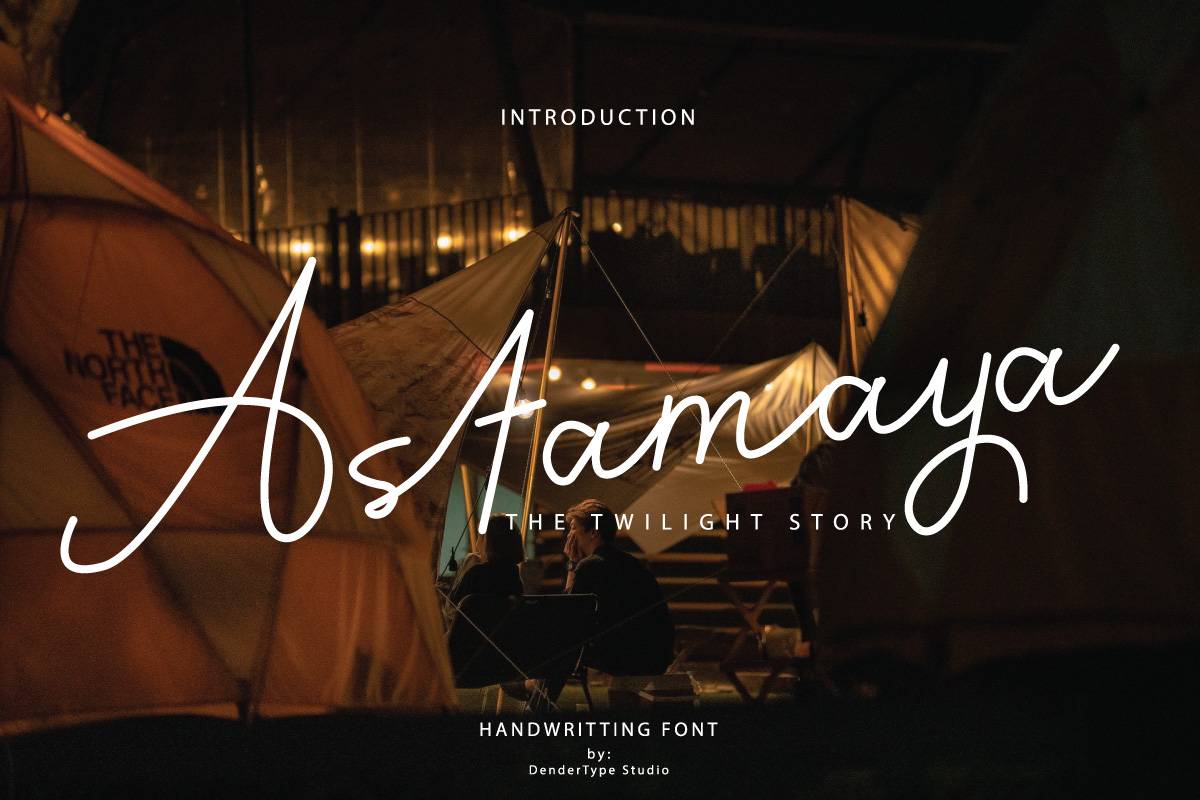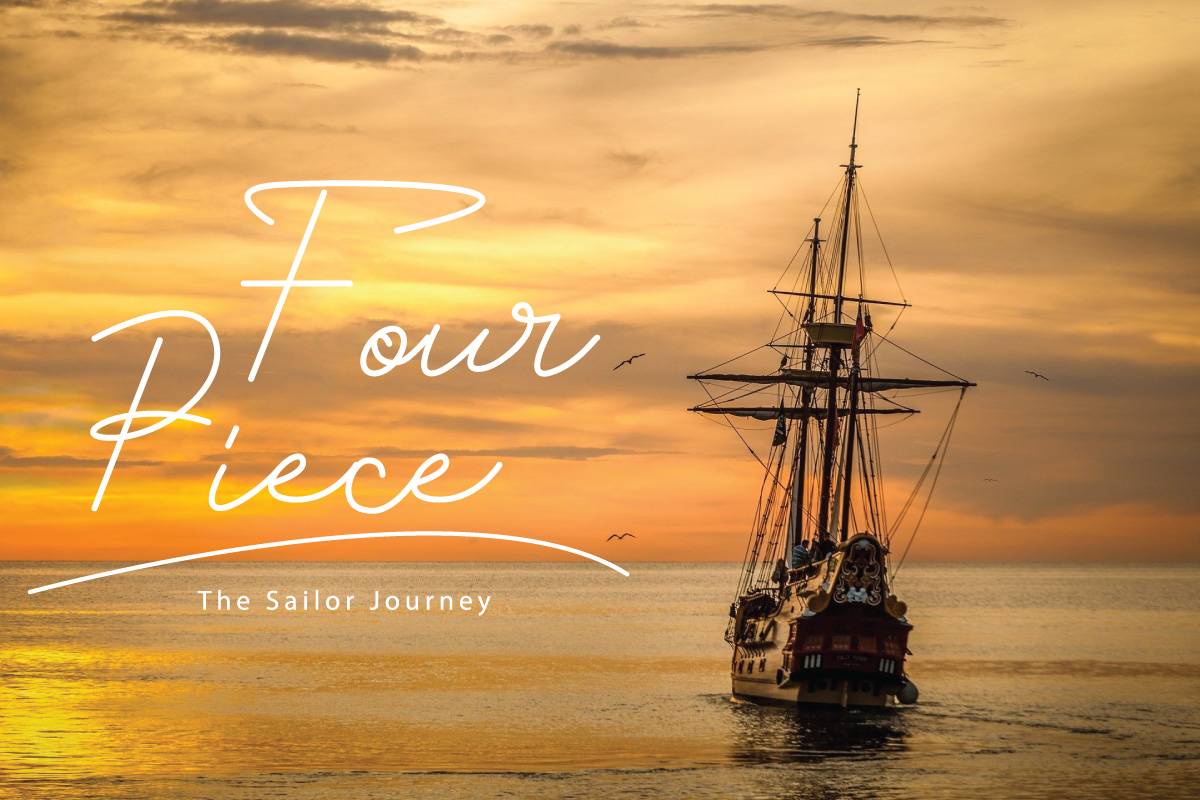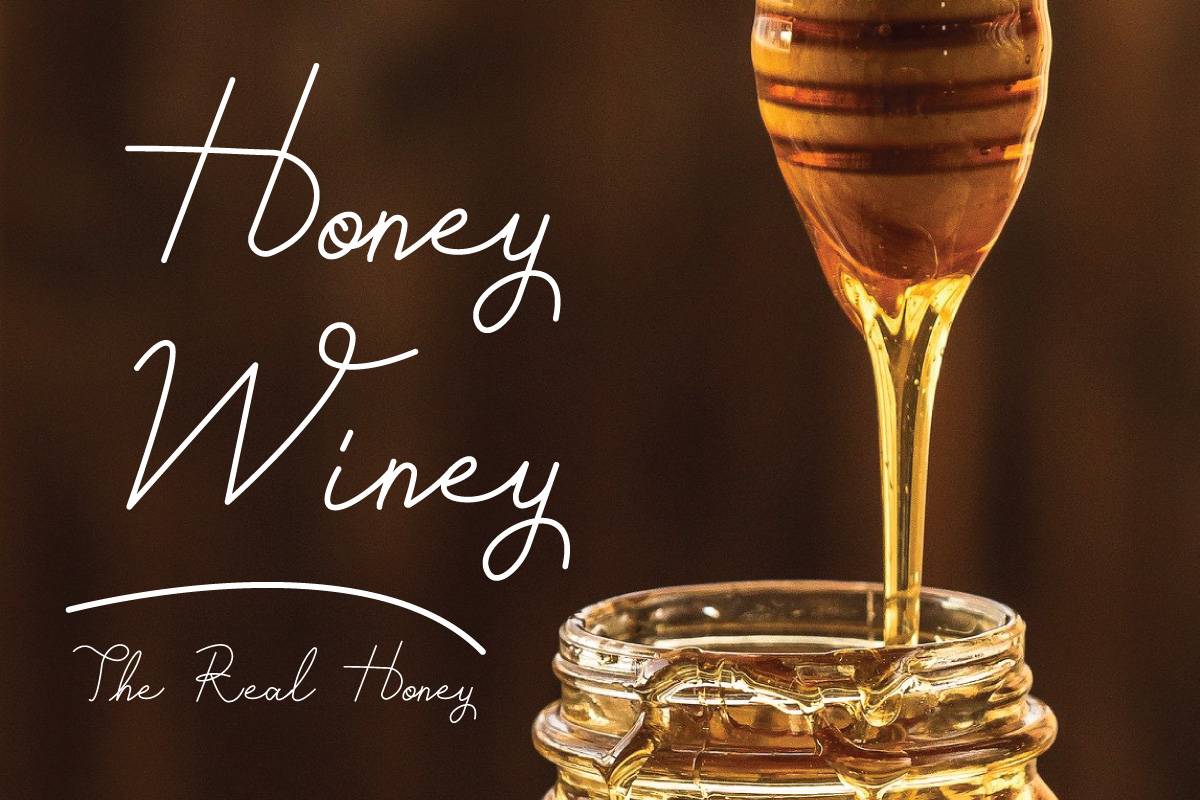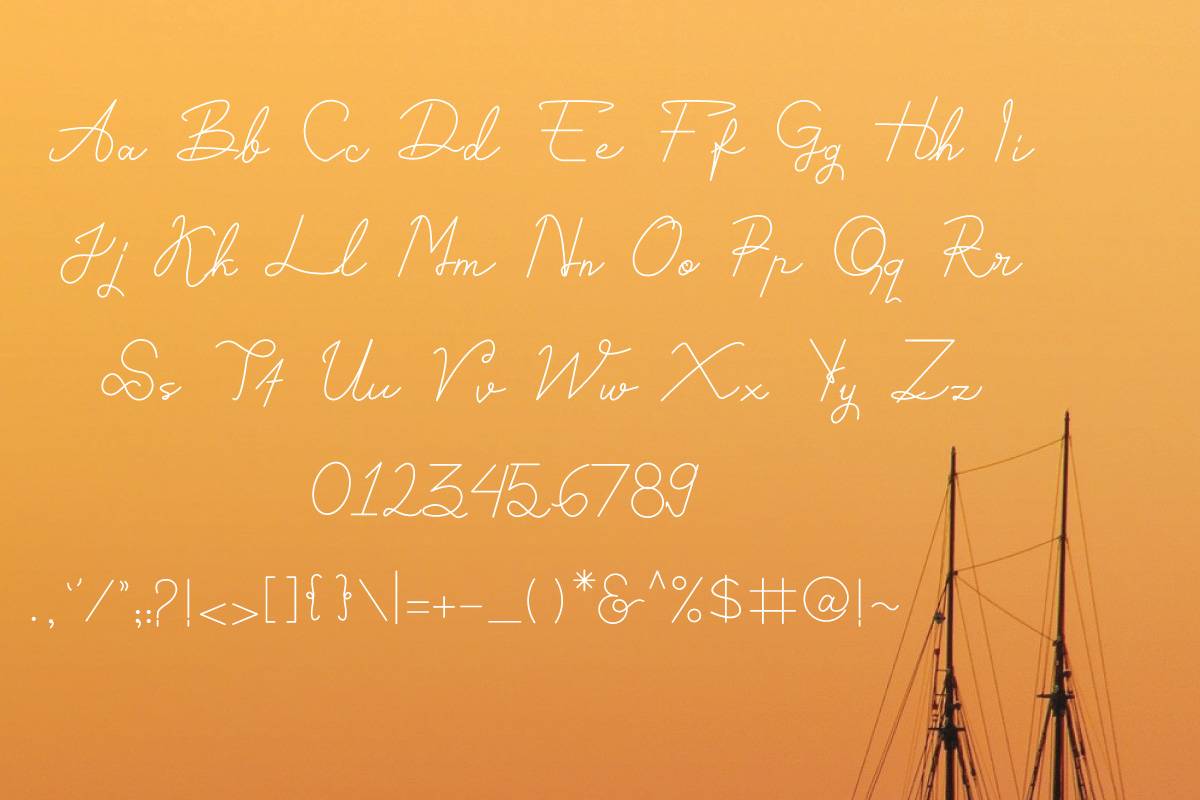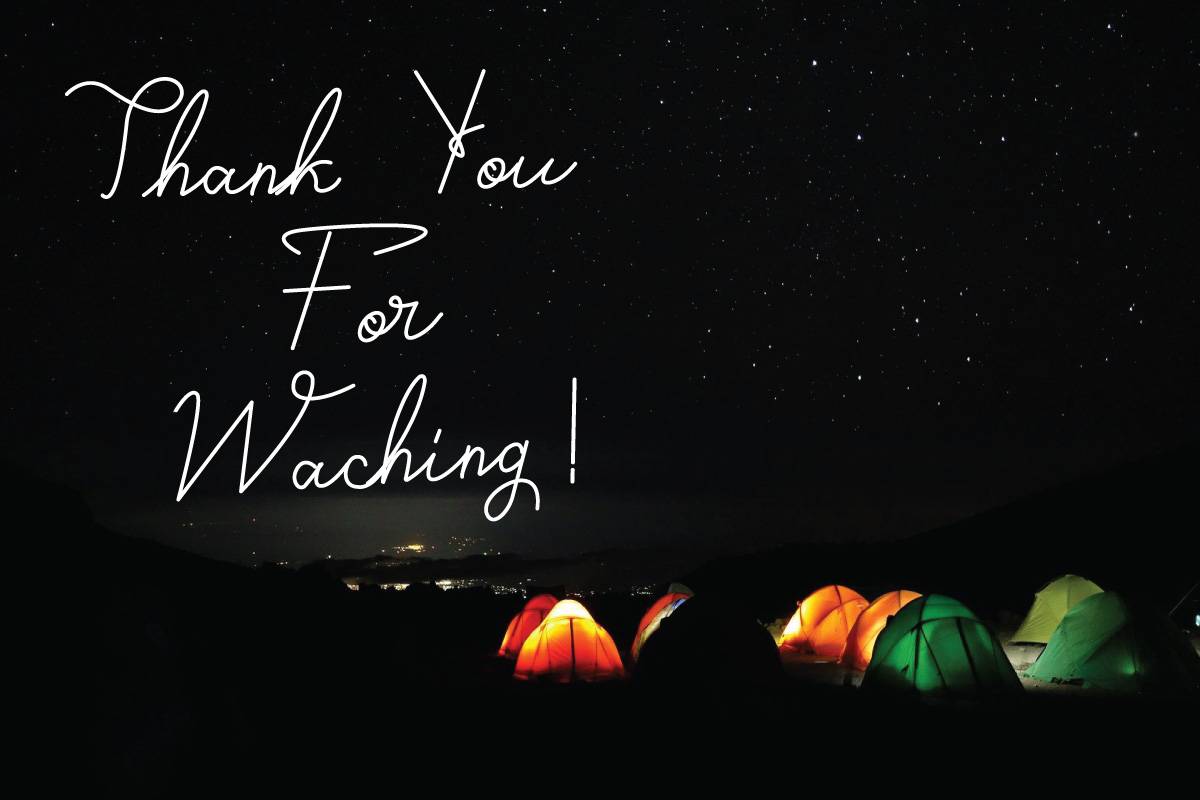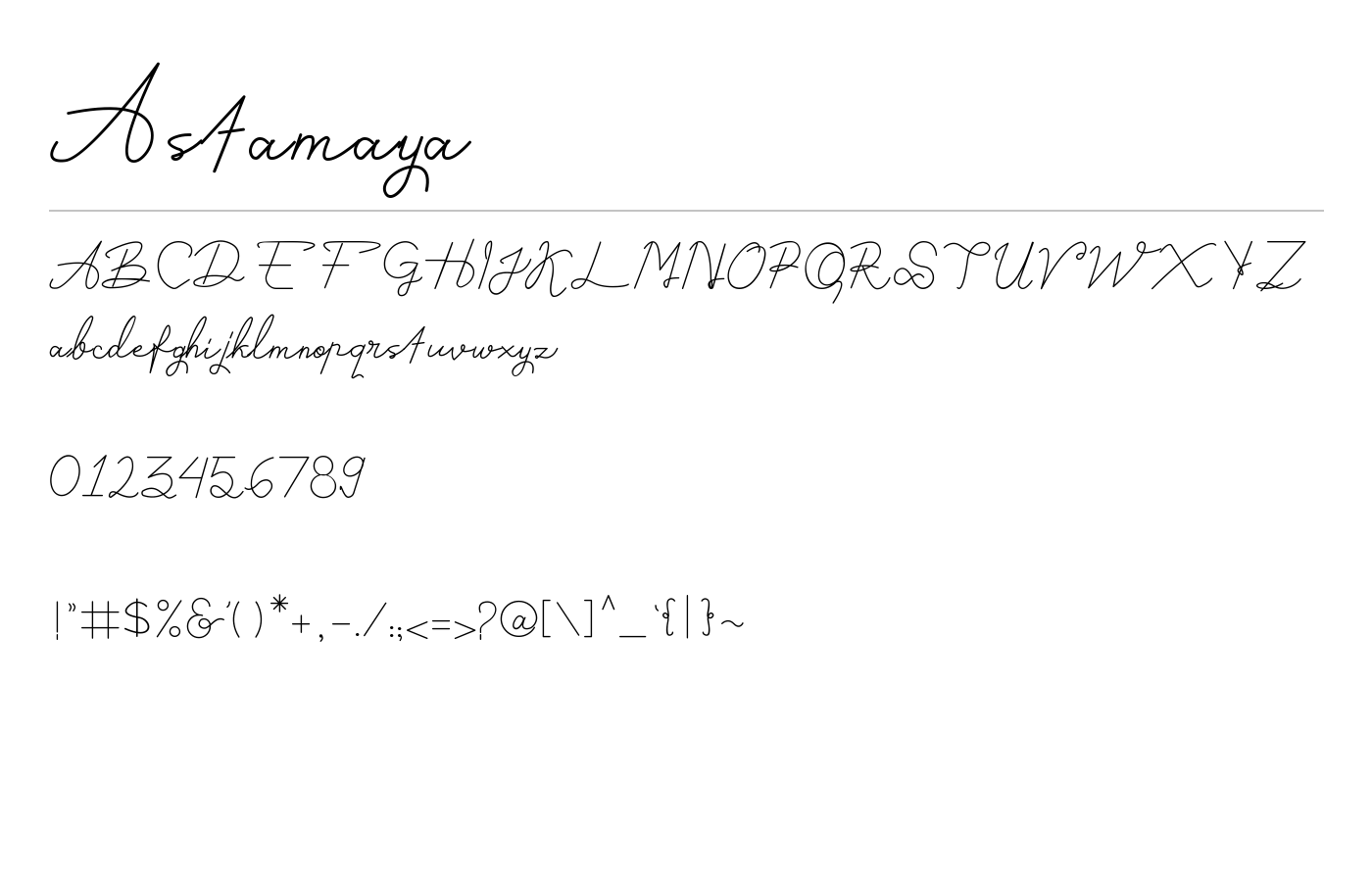
Astamaya is a delicate, elegant script font with a handwritten, calligraphic feel characterized by thin, smooth strokes and a graceful flow. Its slender letterforms and subtle cursive connections make it ideal for adding a personal, refined touch to designs, perfect for invitations, branding, and feminine or artistic projects. This font communicates sophistication and charm while maintaining readability in artistic contexts.
Astamaya Font
About Astamaya Font
| Font family | Astamaya Font |
| Designer | DenderType Studio |